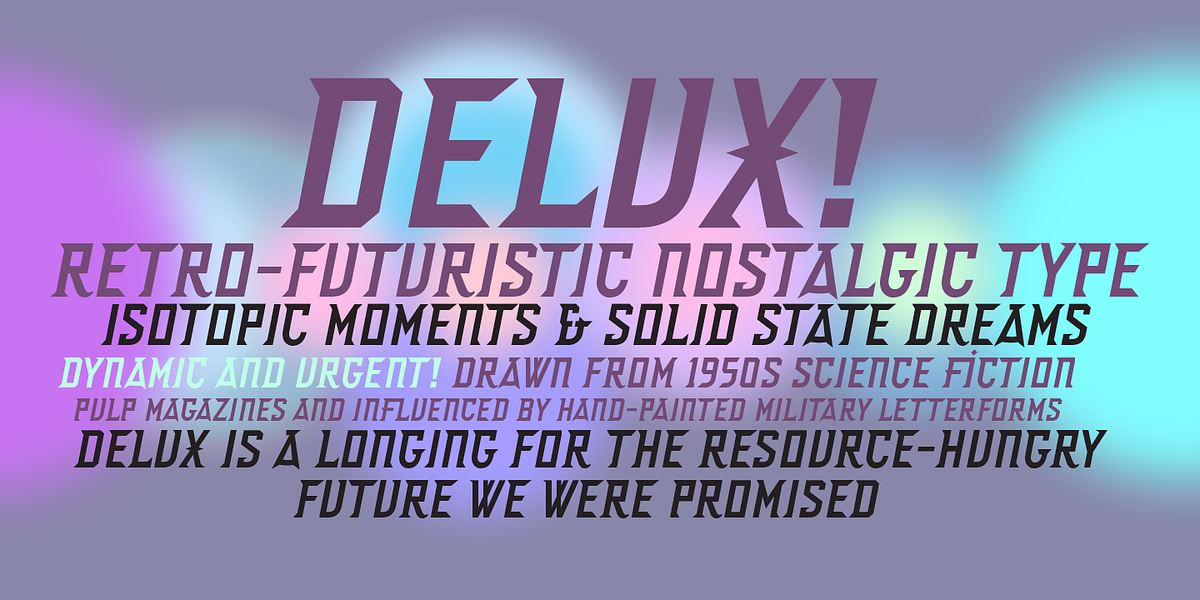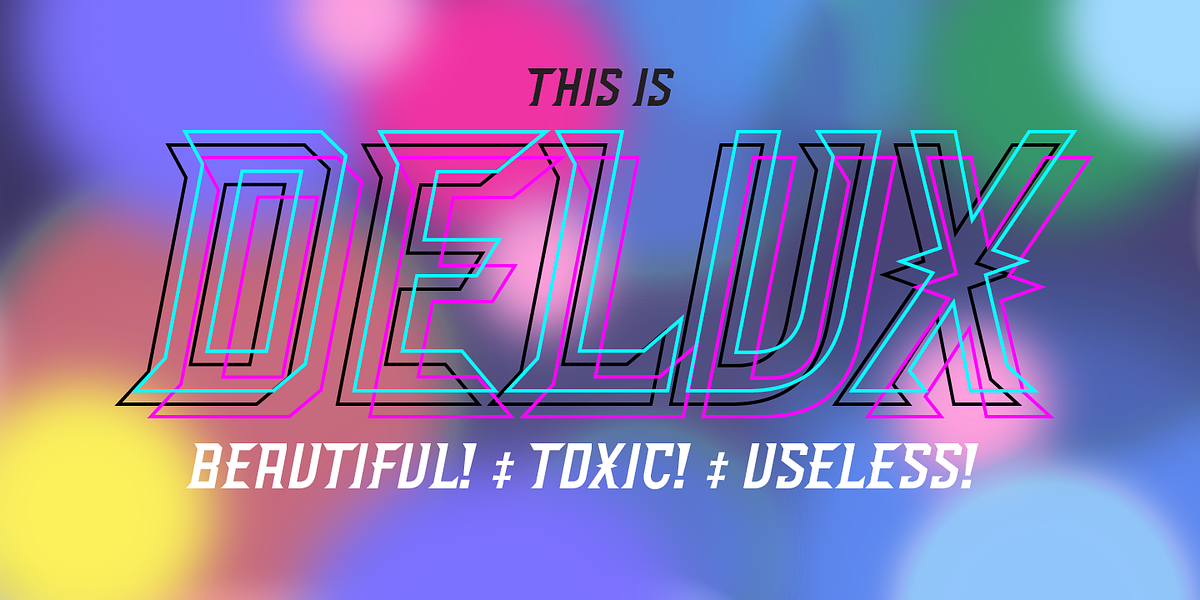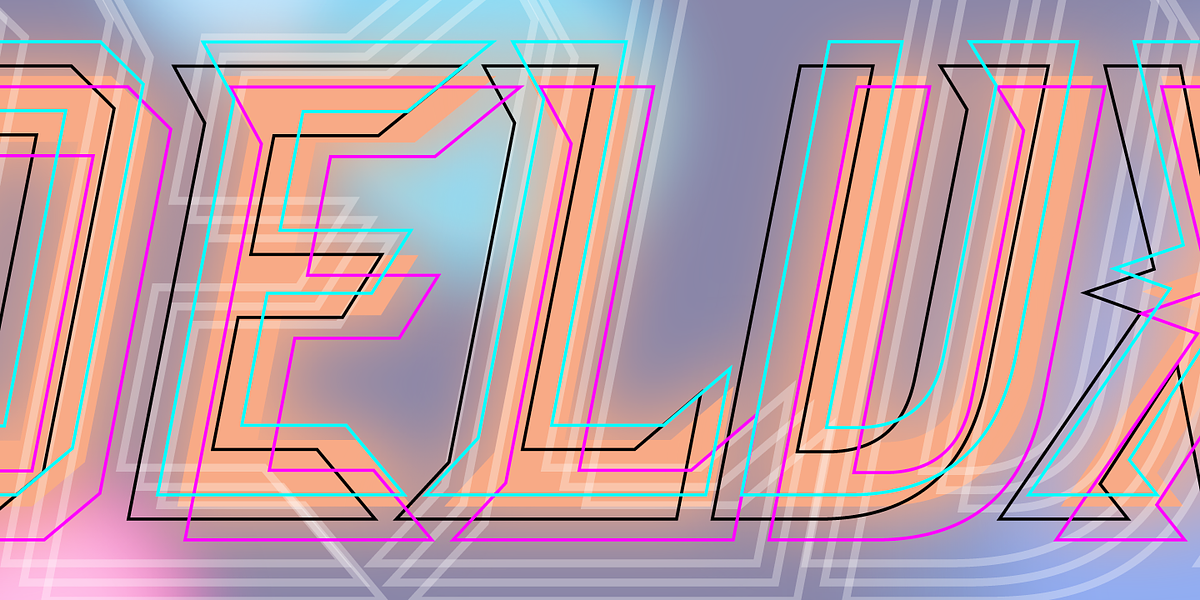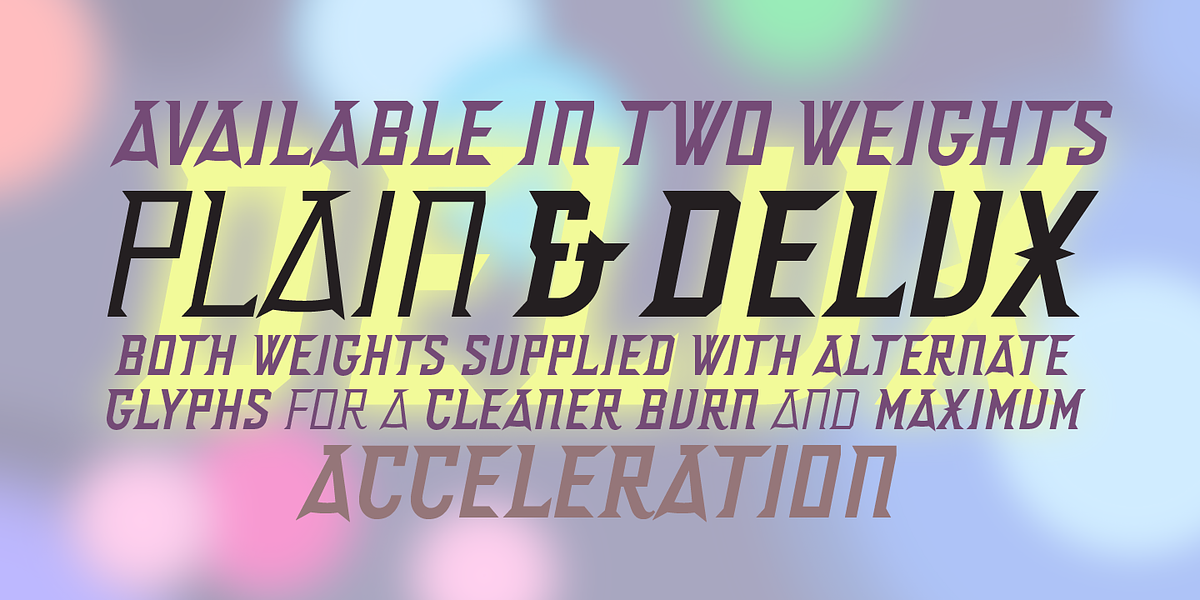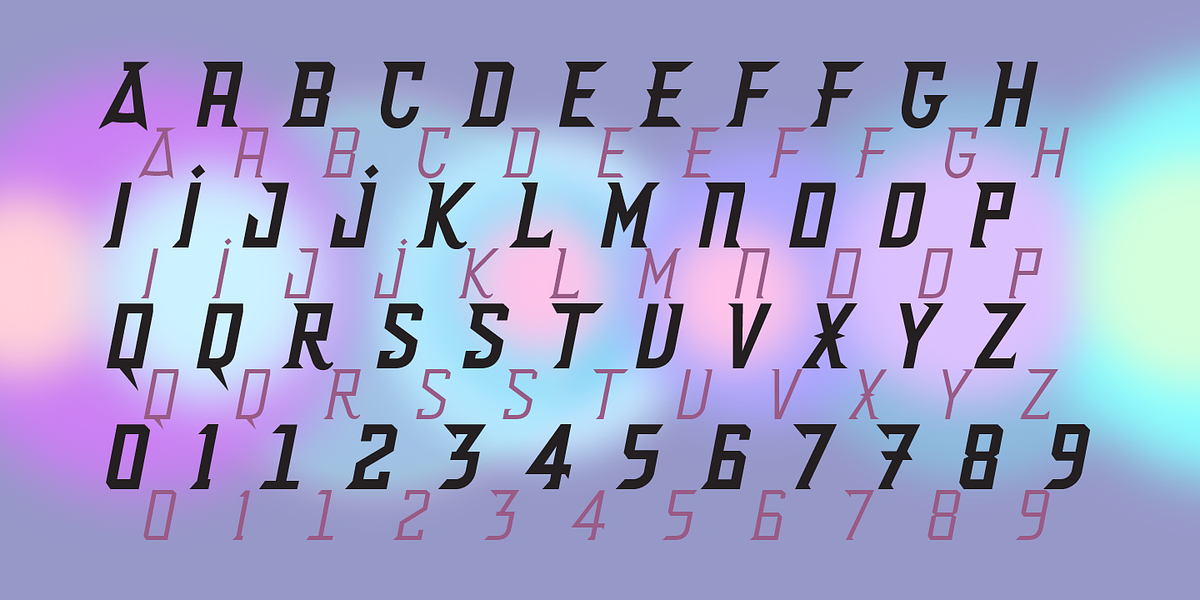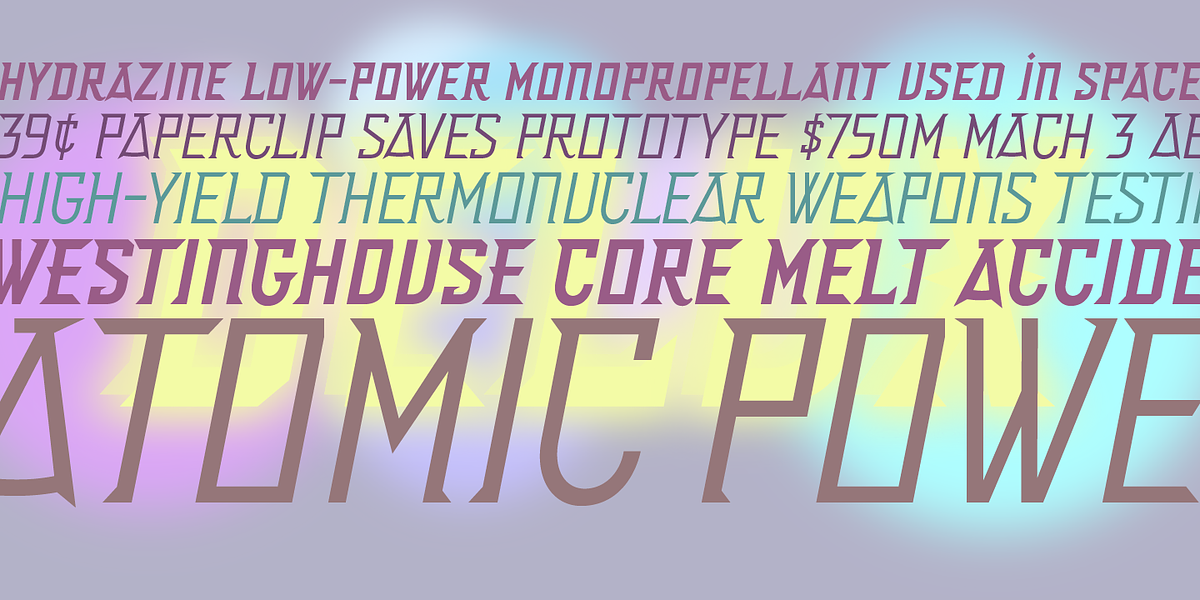
Delux
Delux is a retrofuturistic display font inspired by the aesthetics of 1950s science fiction pulp magazines and hand-painted military letterforms. It evokes a sense of optimism and excitement about the future, with its bold, geometric shapes and pointed details.